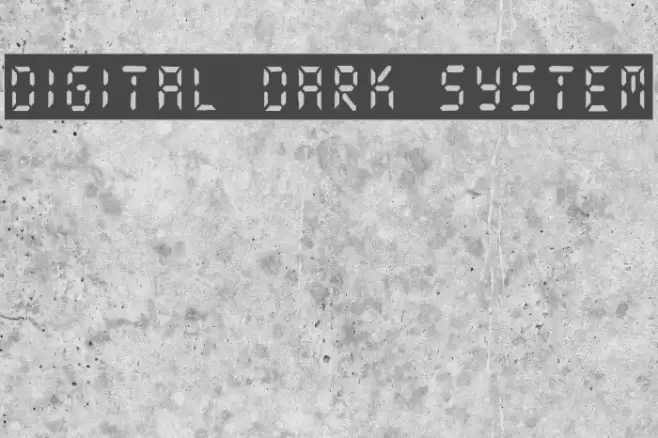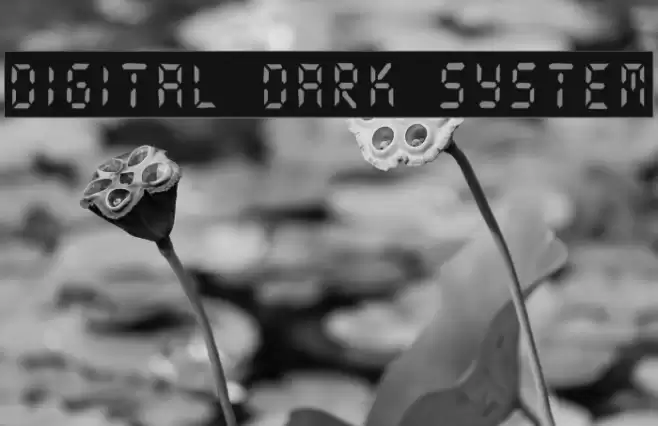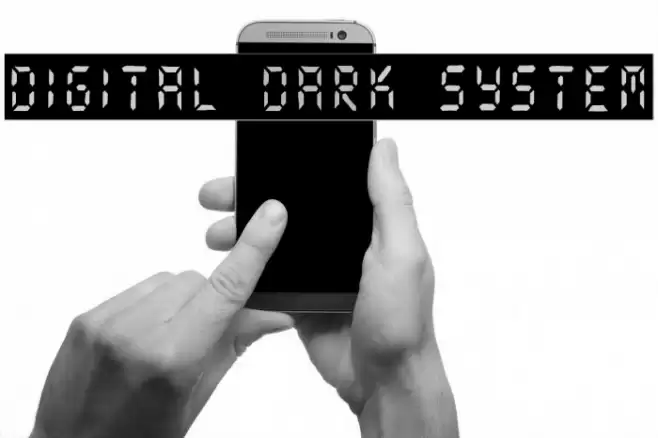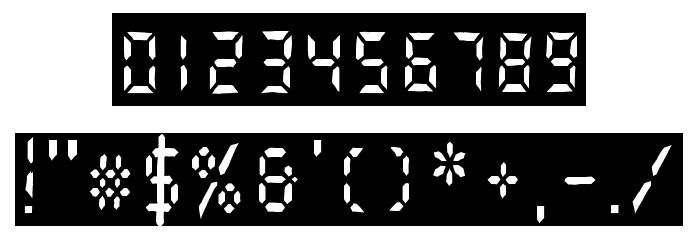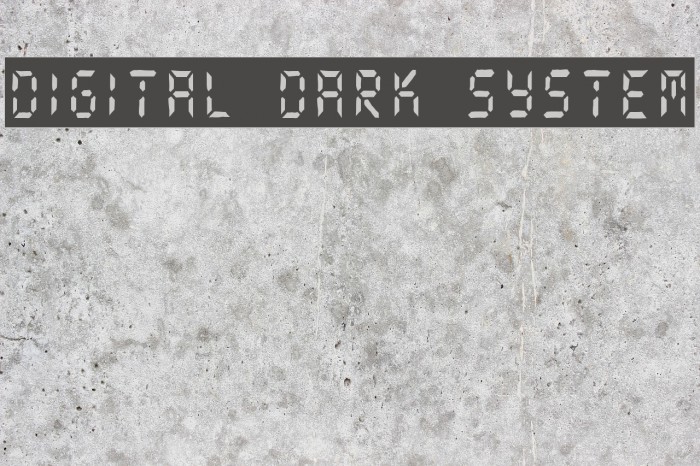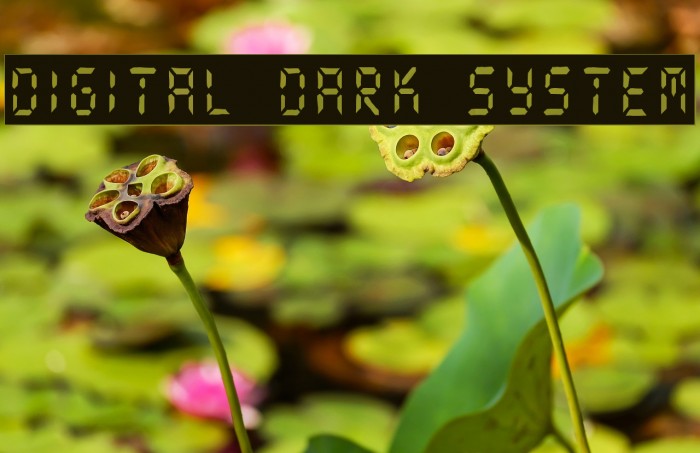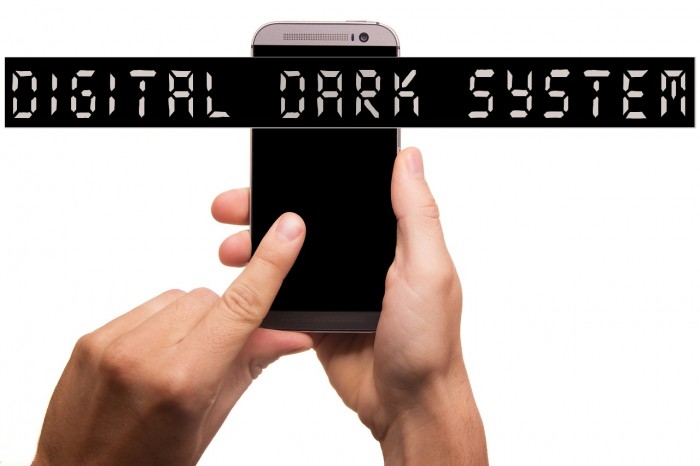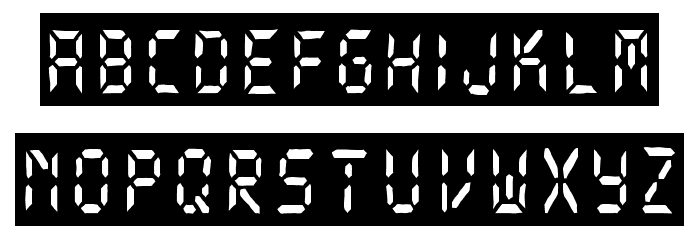
digital dark system Font
digital dark system Description
This font features a digital, segmented style reminiscent of classic LED displays. Each character is composed of distinct segments, creating a geometric and technical appearance. The uppercase and lowercase letters, as well as numbers and special characters, maintain a consistent design, emphasizing clarity and readability. The font's structure is bold and impactful, making it ideal for digital-themed projects. Its unique style captures the essence of retro technology, offering a nostalgic yet modern aesthetic.
A segmented, digital-style font inspired by classic LED displays from Uncategorized fonts.
- Proposed Projects: Ideal for digital interfaces, tech-themed designs, retro displays, and futuristic branding.
- Overall Style: Modern, Retro
- Use Case: Headlines, Logos, Digital displays